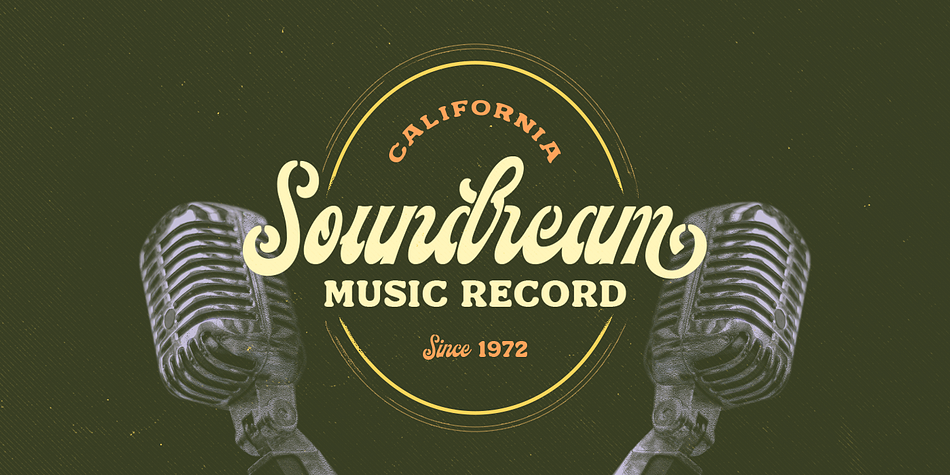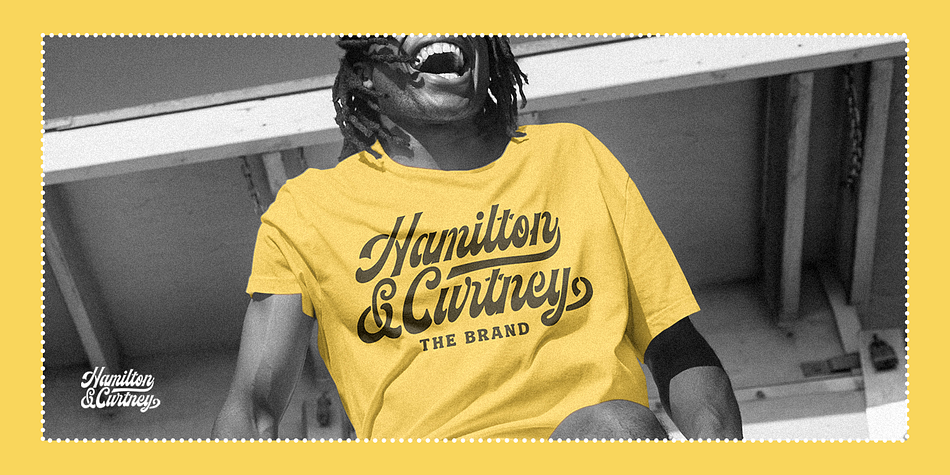
Hickery
Designed by Hendry Juanda, Hickery is a brush script, retro and stencil font family published by Letterhend Studio.
Hickery is a captivating stencil script font that effortlessly infuses your designs with a touch of class and a dash of vintage charm. Its unique blend of elegance and ruggedness makes it the perfect choice for projects seeking a timeless and sophisticated appeal
This font perfectly made to be applied especially in logo, and the other various formal forms such as invitations, labels, logos, magazines, books, greeting / wedding cards, packaging, fashion, make up, stationery, novels, labels or any type of advertising purpose.
- Uppercase & lowercase
- Numbers and punctuation
- Alternates & Ligatures
- Multilingual